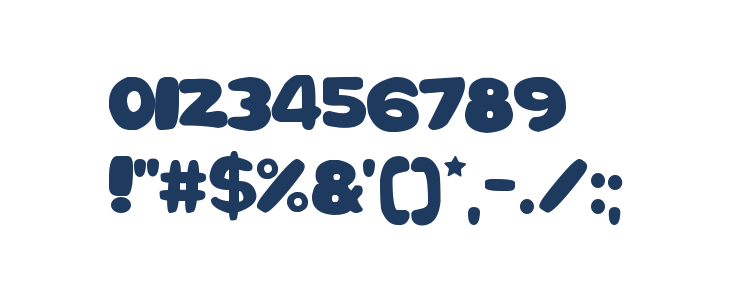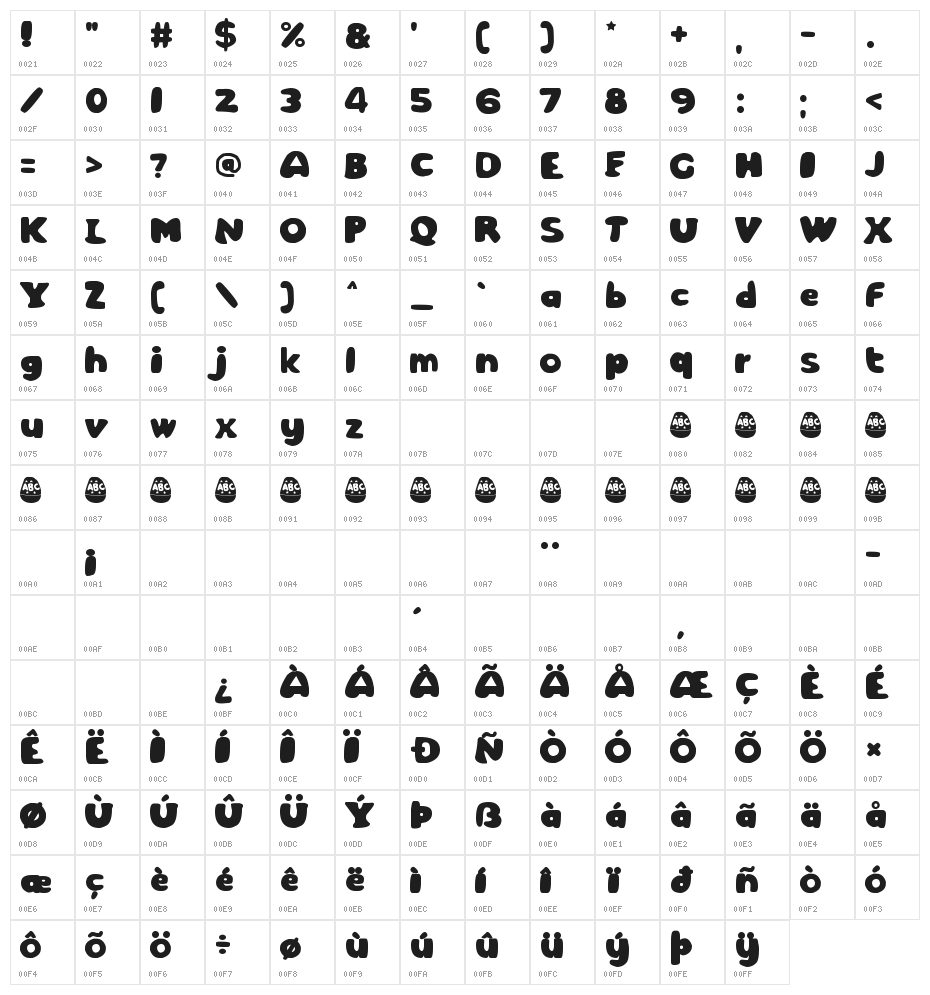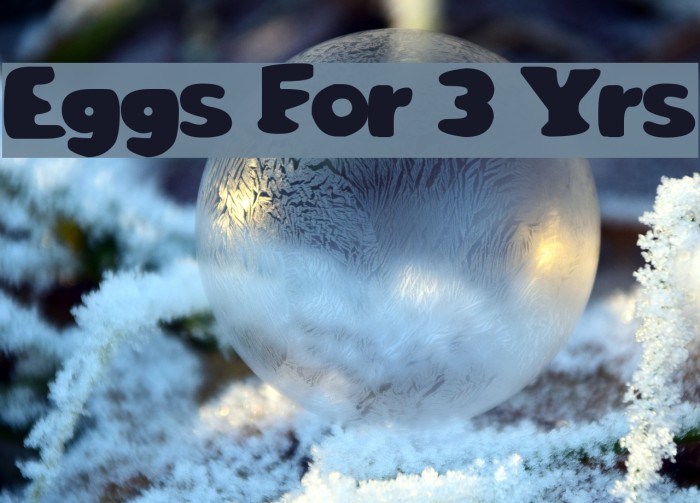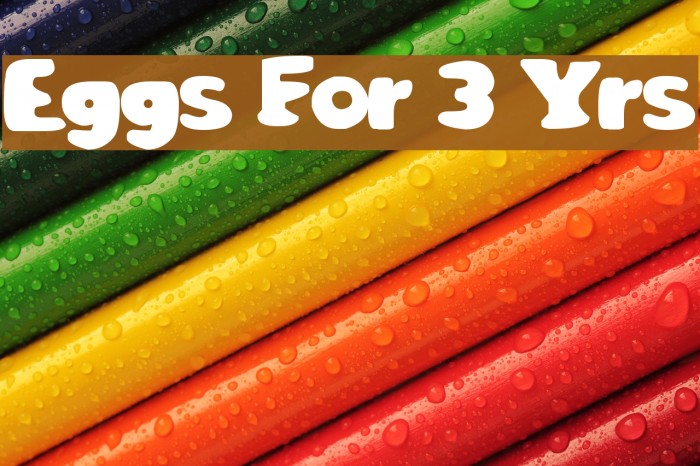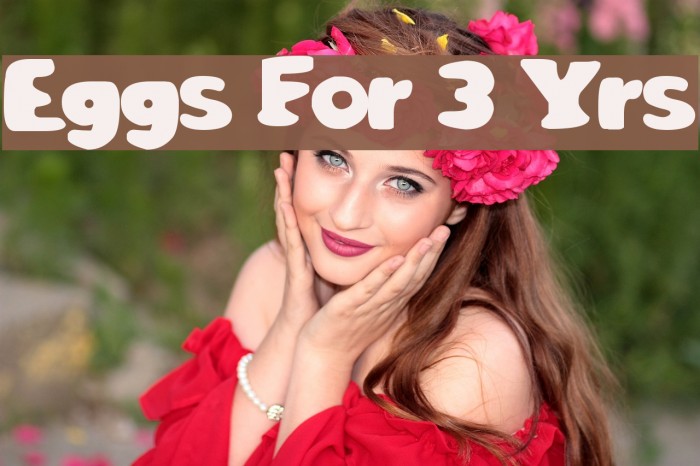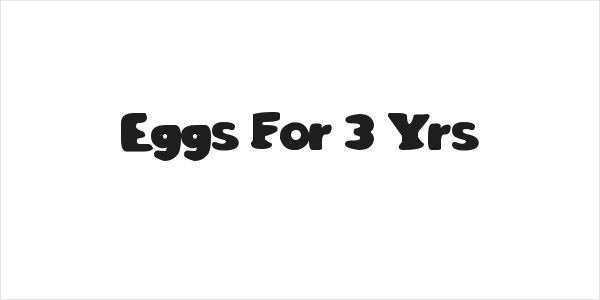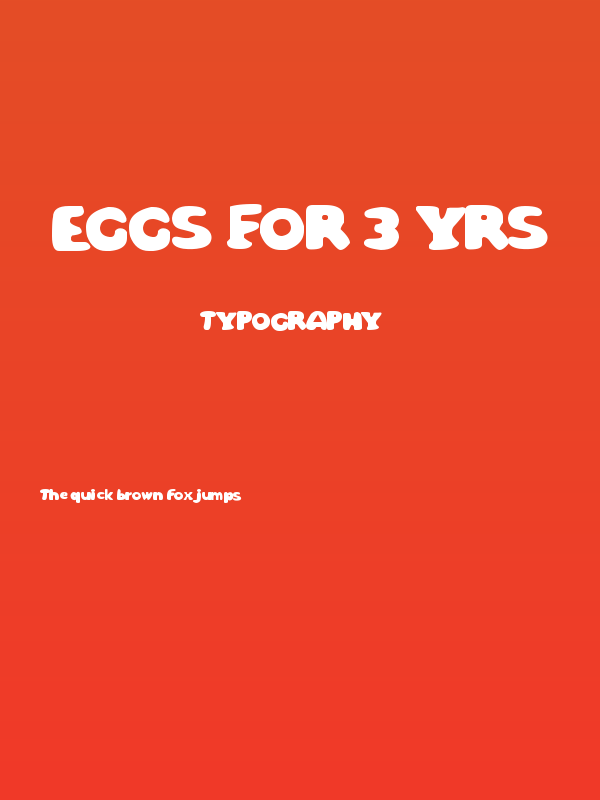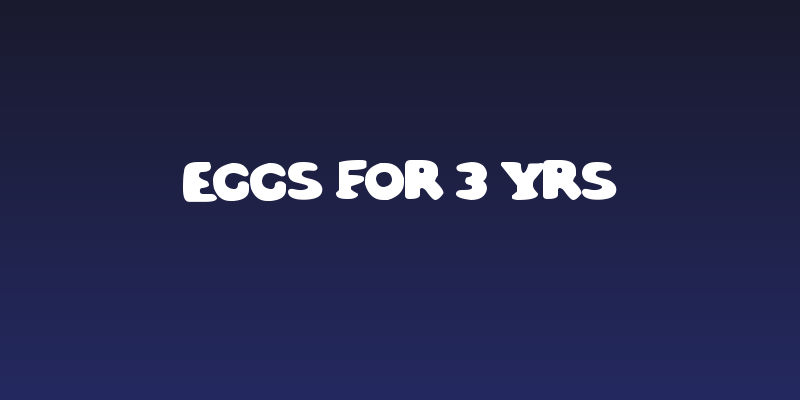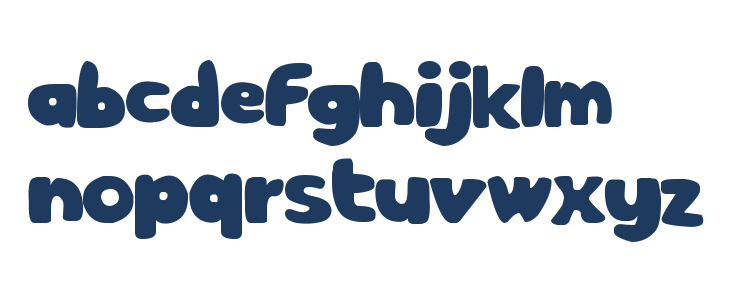
Eggs For 3 Yrs Font
Eggs For 3 Yrs Description
This playful and bold font features rounded, bubbly characters that exude a sense of fun and whimsy. The letters are thick and have a uniform stroke width, giving them a strong presence on the page. The overall design is reminiscent of cartoon or comic styles, making it ideal for projects that require a lighthearted and approachable feel. The characters are well-spaced, ensuring readability despite their boldness. This font includes a full set of uppercase and lowercase letters, numbers, and a variety of special characters, making it versatile for various uses.